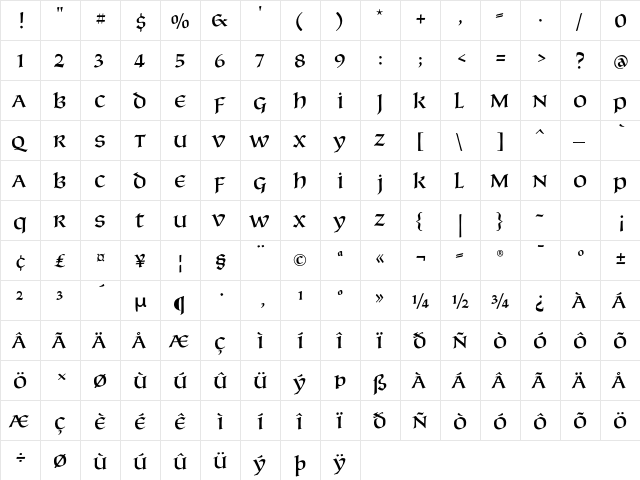
Missale AS Lunea
| Foundry | Andreas Seidel / astype |
| Designer | Andreas Seidel 2004 |
Design Context for Missale AS Typeface
Missale AS takes a measured approach to typography — its balanced proportions and neutral character make it a reliable workhorse for both digital and print work.